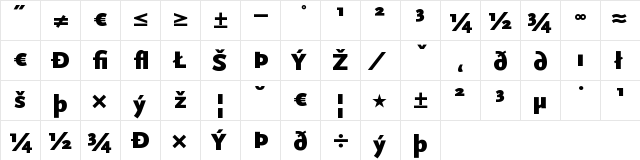
ScalaSans Exp Black Regular Font Preview
ScalaSans Exp Black Regular
Design Context for ScalaSans Exp Black Typeface
ScalaSans Exp Black offers clean, dependable letterforms without strong stylistic allegiance, making it a practical choice for designers who need flexibility.